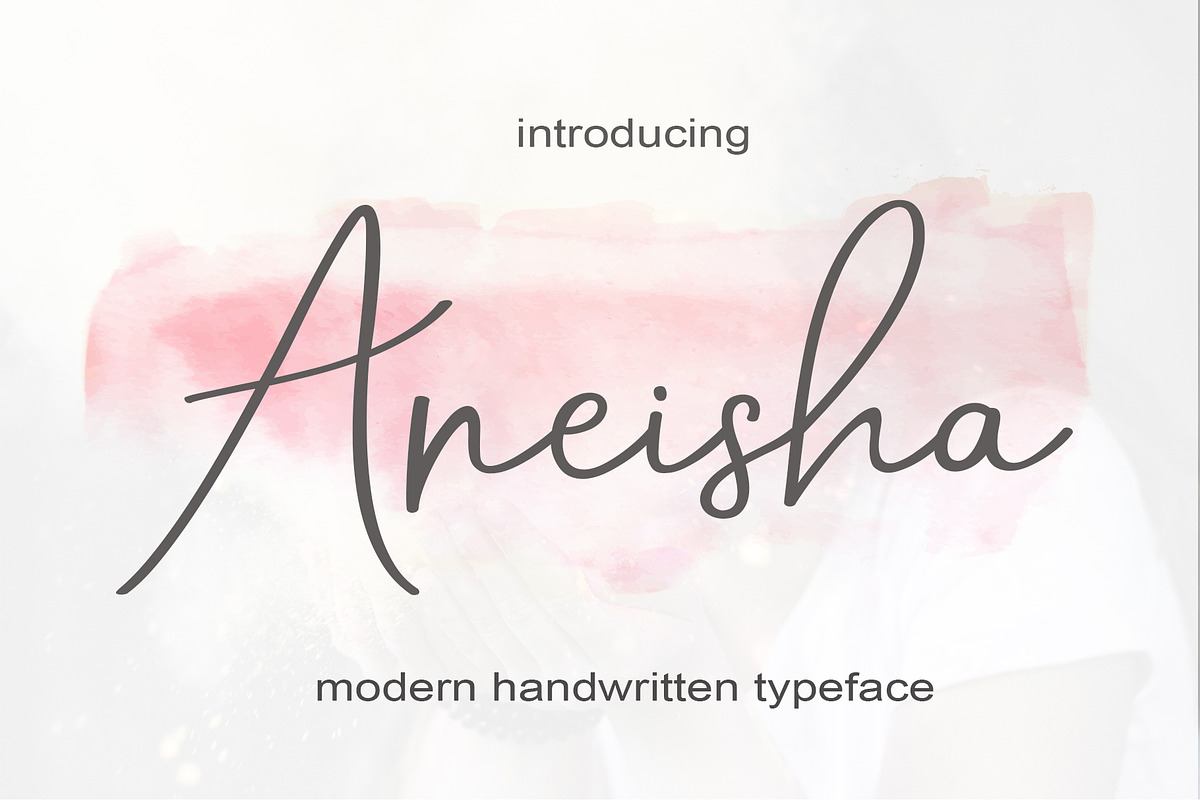
Elegant, fluid, and graceful, Aneisha Script Font Free Download is a beautiful handwritten script typeface designed to add sophistication and personality to your projects. Perfect for wedding invitations, logos, branding, greeting cards, and social media graphics, this font brings a personal, artistic touch to your designs.
With its smooth, flowing strokes and graceful curves, Aneisha is ideal for designs that need to convey a sense of luxury, romance, and elegance. Whether you're creating high-end branding or a heartfelt invitation, this font offers both beauty and legibility.